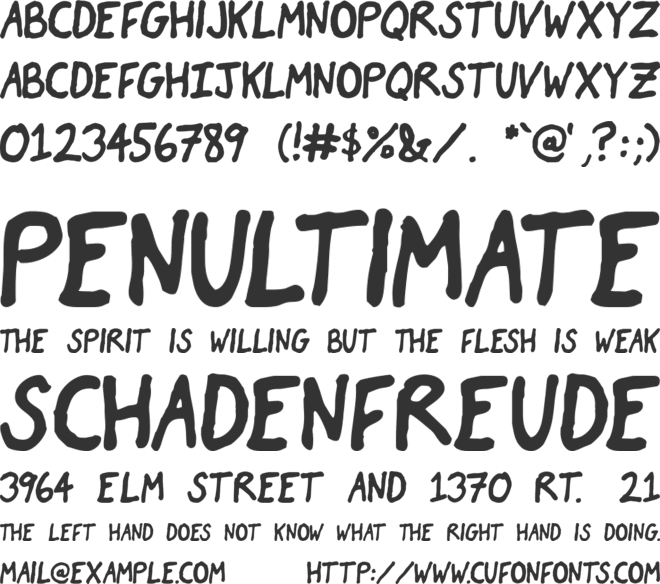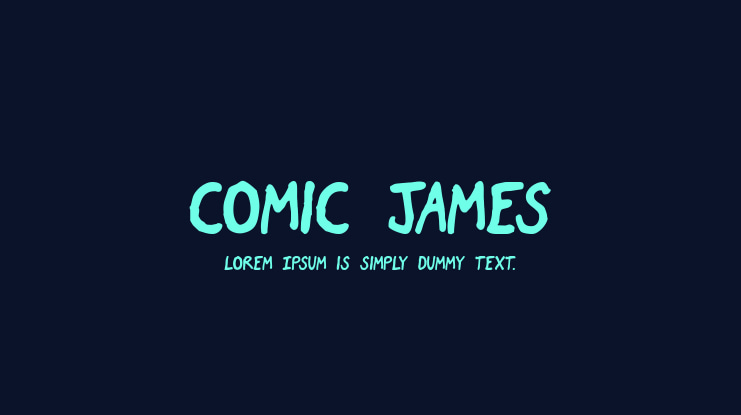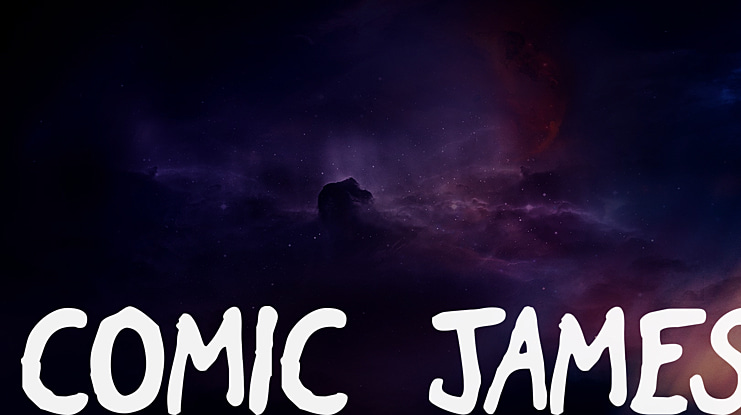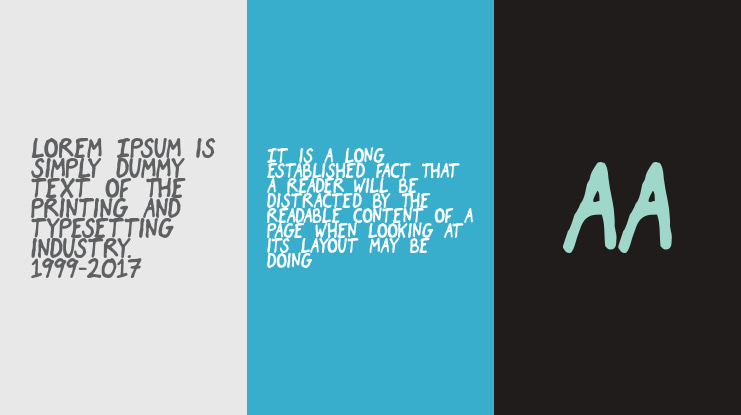
Comic James Font
Here's a font I made from my own hand-lettered comic style. It's got a chunky sort of Beavis-and-Butthead vibe, and all the kerning is sorted out. Use it in good health!